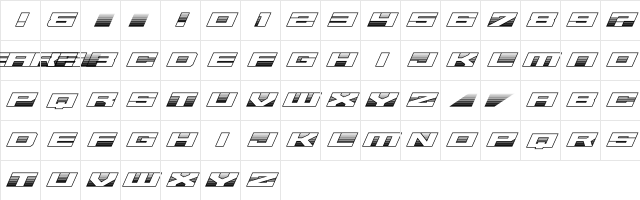
Gear6 Whitegrad Free Font
Gear6 Whitegrad
Style: Whitegrad
Foundry: Youssef Habchi
Designer: Youssef Habchi
Design Context for Gear6
Gear6 is a composed and adaptable typeface that performs quietly and consistently across a wide range of design contexts.